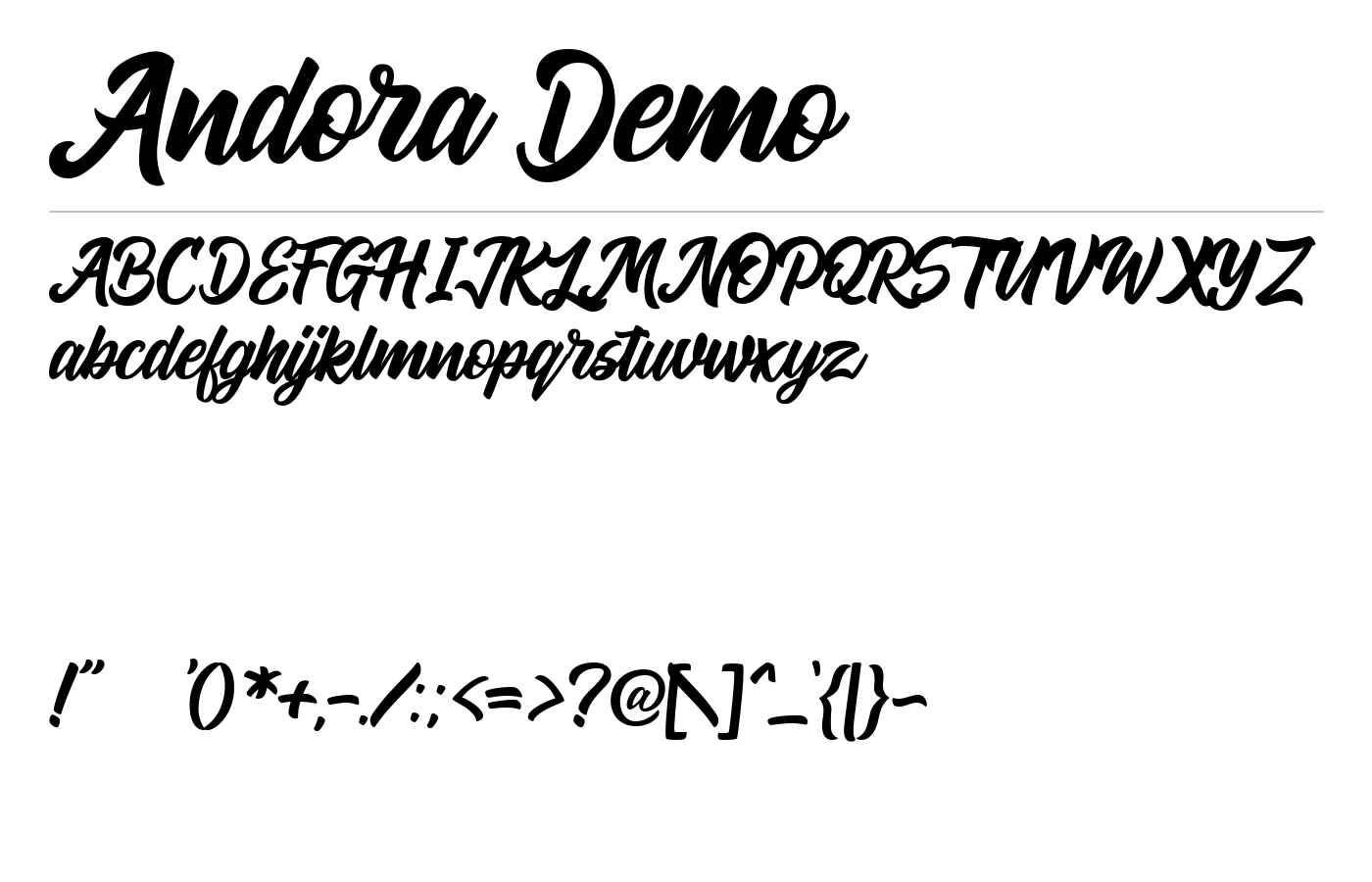
Andora Demo is a bold, cursive script font with smooth, flowing strokes that give it an energetic and elegant feel. Its dense weight and connected letterforms make it ideal for eye-catching headlines, logos, and branding that aim to convey a sense of creativity and personality. This stylish, handwritten font works well in fashion, invitations, and other designs that benefit from a dynamic yet refined appearance.
Andora Demo Font
About Andora Demo Font
| Font family | Andora Demo Font |
| Designer | Weape Studio |